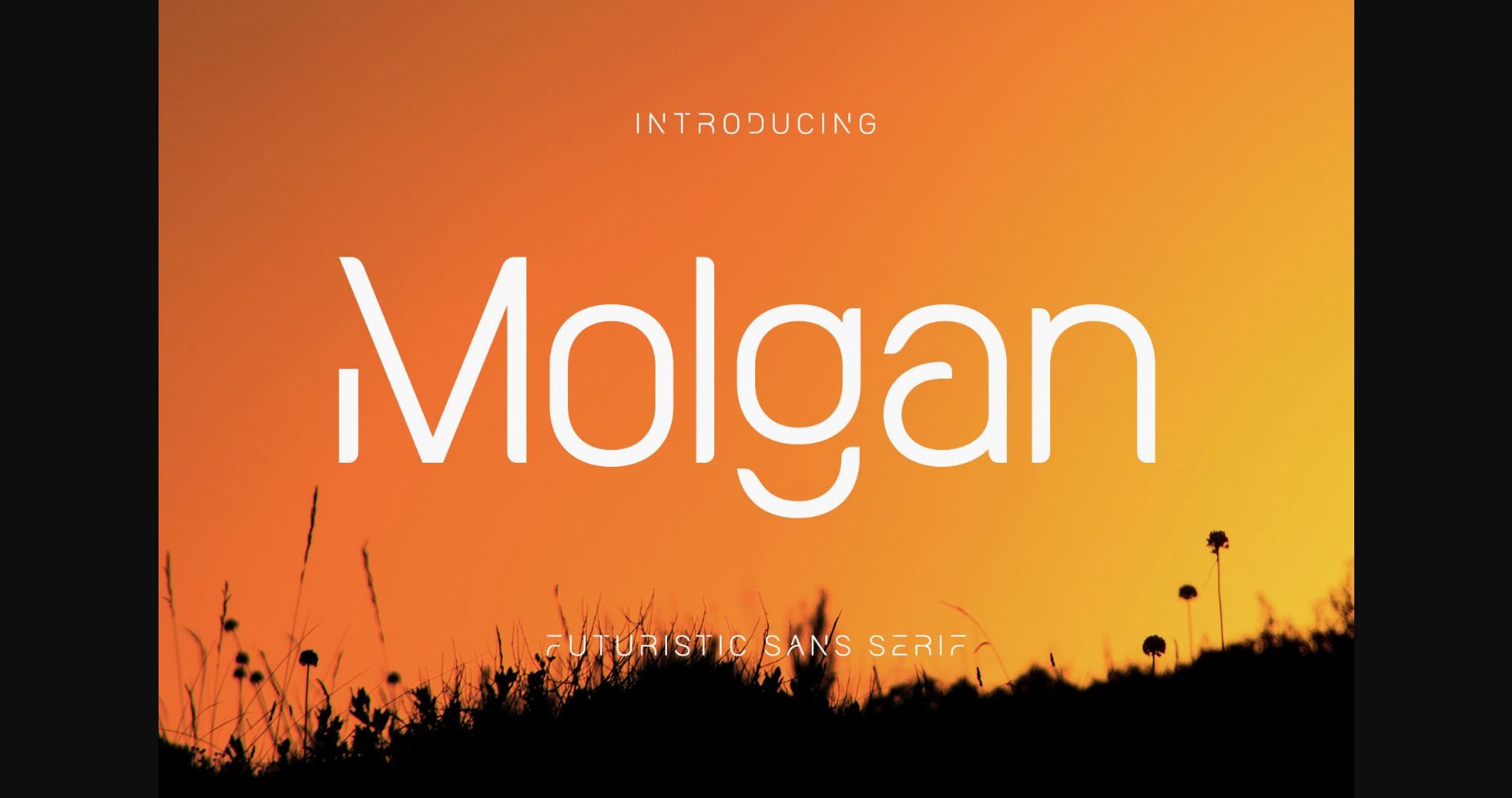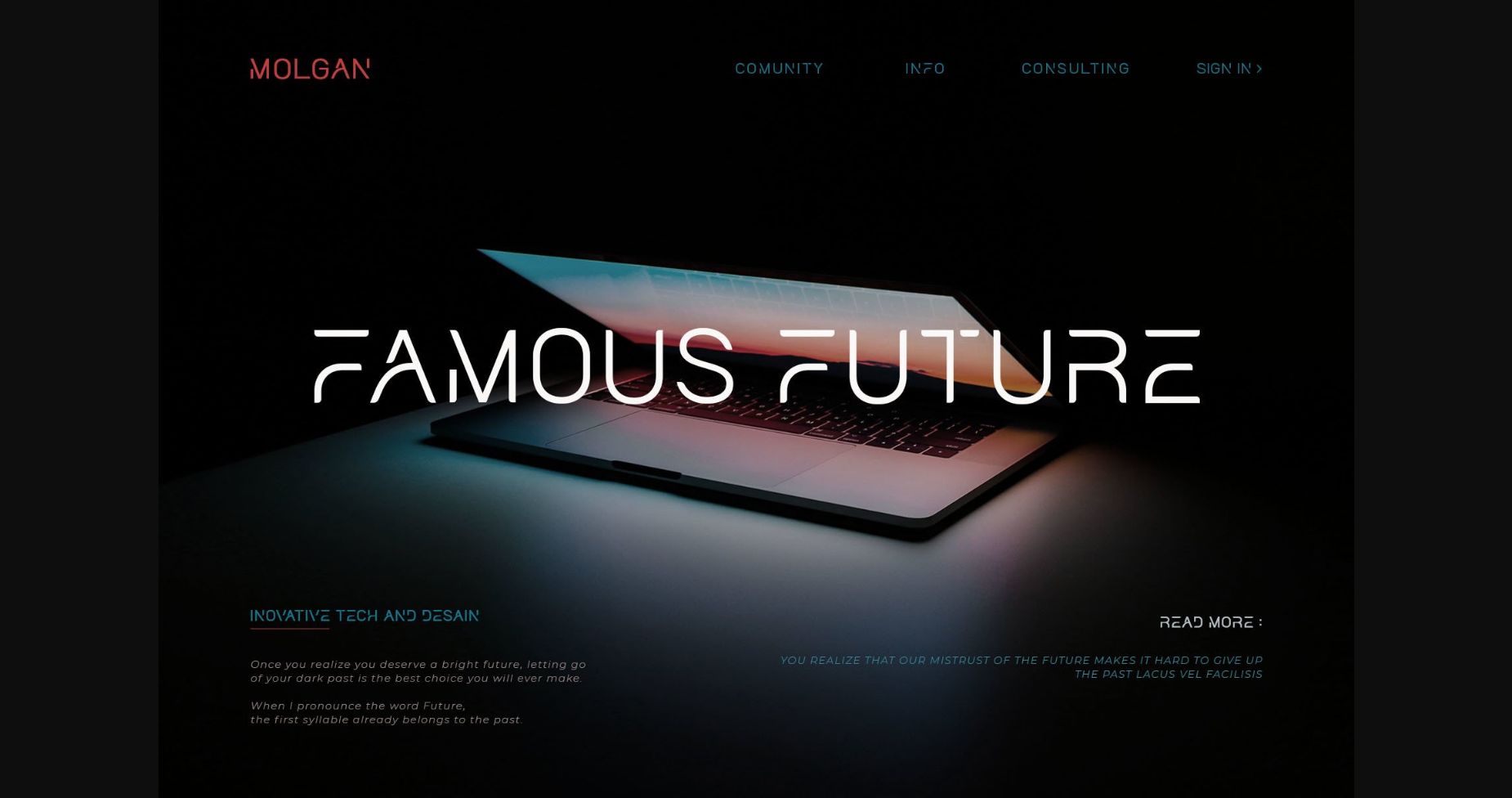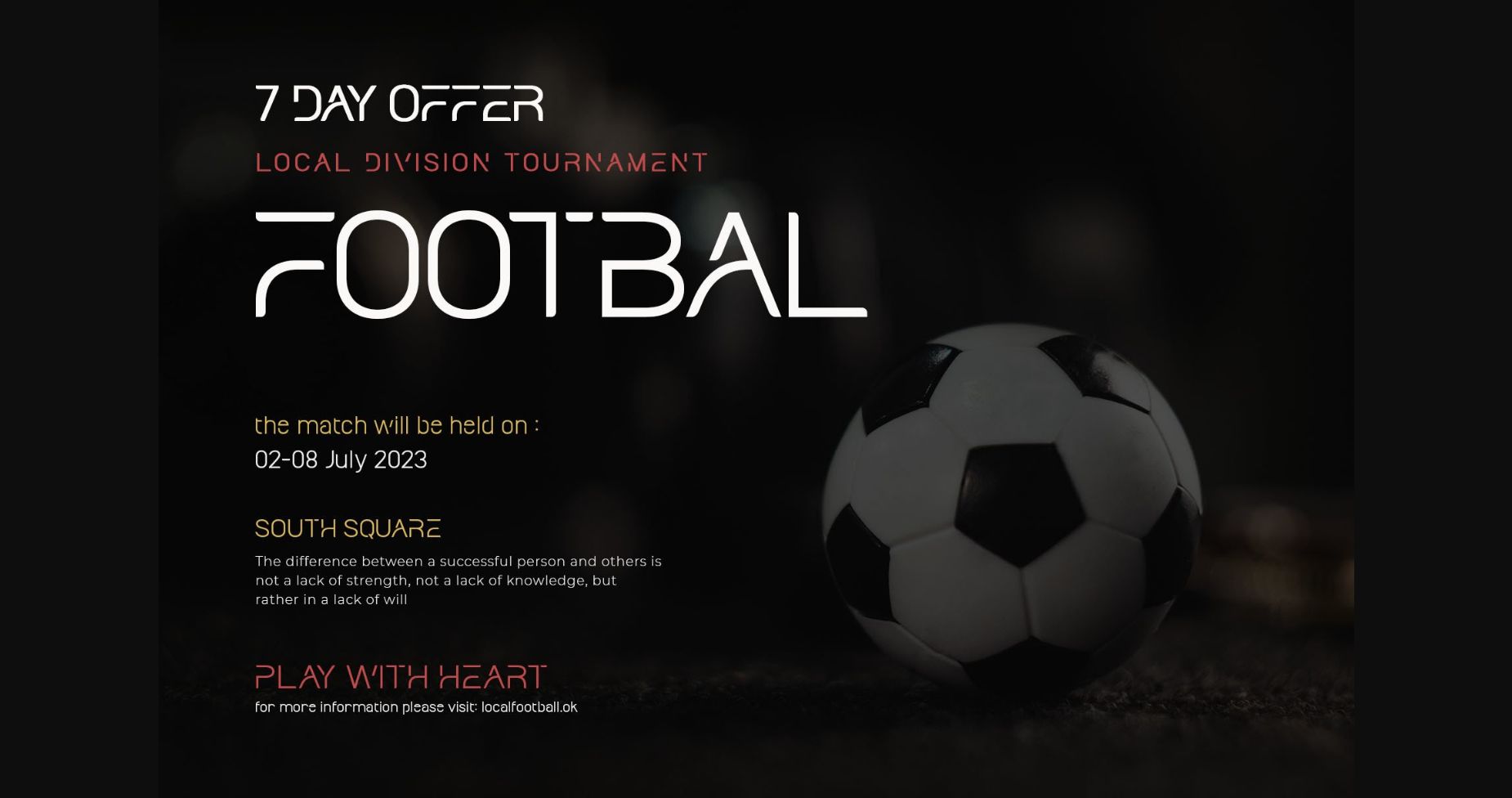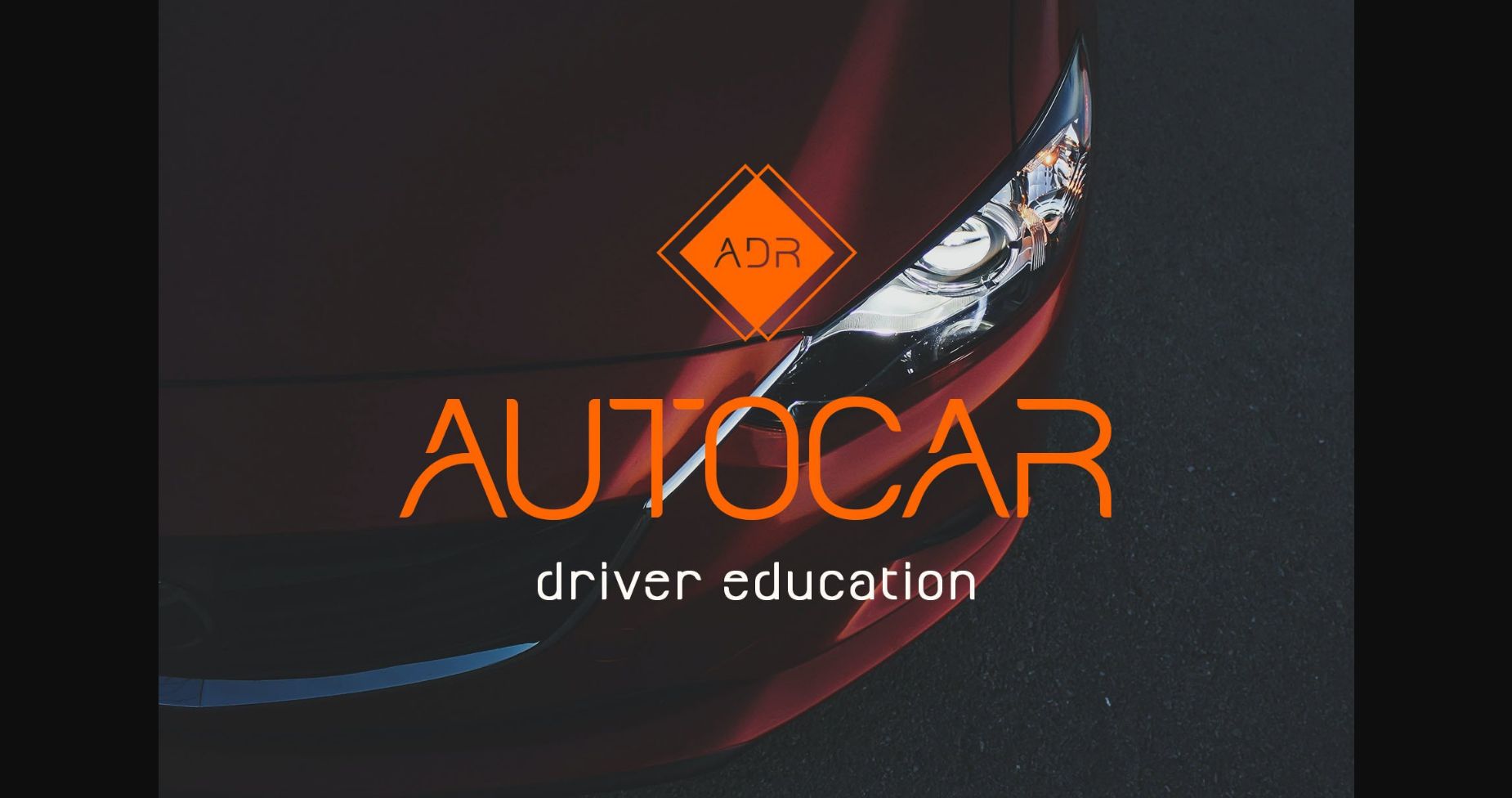
About Molgan Font
Molgan is a futuristic and modern sans serif font, best used as a display for headings, logos, branding, magazines, product packaging, and invitations. Molgan comes with clean lines and smooth curves giving any project an extra touch of class.